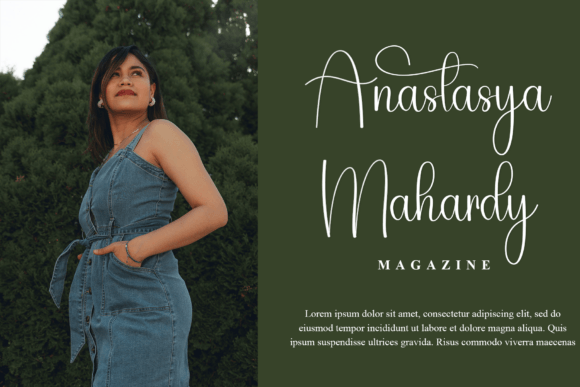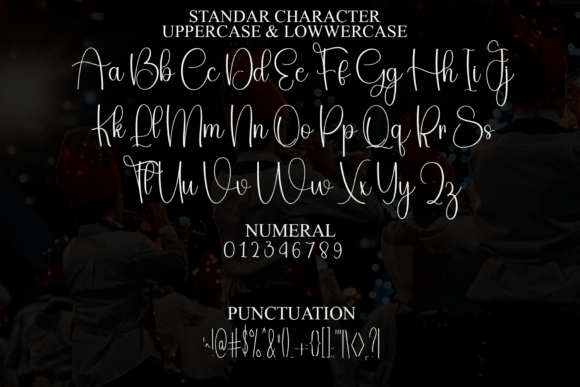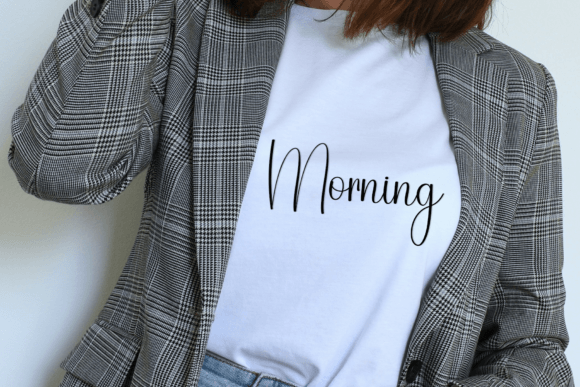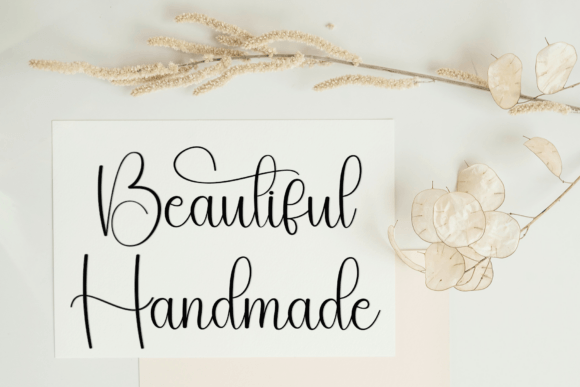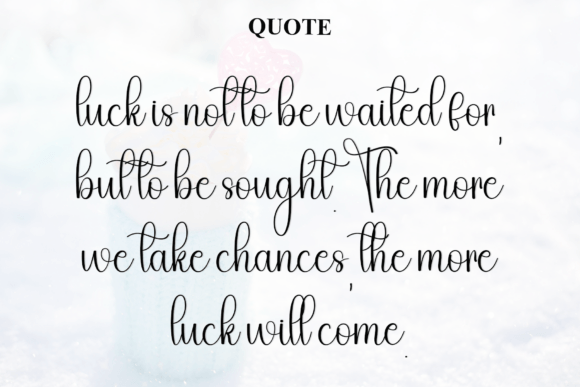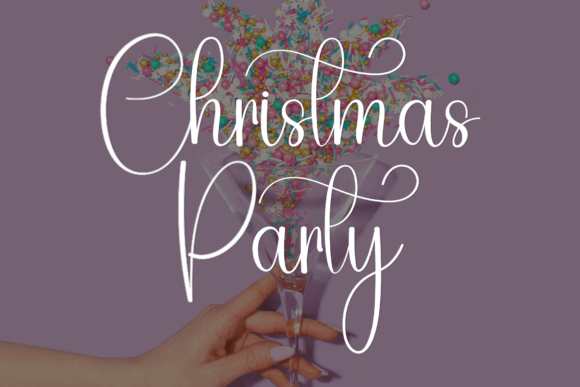
Introducing Giant Party Font: Elevate Your Creativity with Elegance
Are you a designer, crafter, or DIY enthusiast looking for a font that can add a touch of magic to your creative projects? Look no further than the Giant Party Font, a beautiful script font that combines elegance with playfulness. In this article, we’ll dive into the world of Giant Party Font, exploring its features, uses, and benefits for designers and crafters alike.
What is Giant Party Font?
Giant Party Font is a carefully crafted script font that boasts a unique blend of sophistication and whimsy. With its flowing lines and delicate curves, this font is perfect for adding a touch of elegance to any creative project. Whether you’re working on a DIY craft, designing social media graphics for Instagram, or creating calligraphy scripts, Giant Party Font is the perfect choice.
Key Features of Giant Party Font
- Magical Script Font: Giant Party Font is a script font that features a magical, whimsical feel, perfect for adding a touch of wonder to your designs.
- Elegant and Playful: This font combines elegance with playfulness, making it suitable for a wide range of creative projects.
- High-Quality Design: Giant Party Font is carefully crafted with attention to detail, ensuring a high-quality design that will elevate your creations.
- Versatile: This font can be used for a variety of projects, including DIY crafts, social media graphics, calligraphy scripts, and more.
Uses for Giant Party Font
Giant Party Font is an incredibly versatile font that can be used for a wide range of creative projects. Here are just a few ideas to get you started:
- Instagram Graphics: Add a touch of elegance to your Instagram graphics with Giant Party Font. Use it to create eye-catching quotes, announcements, and more.
- DIY Crafts: Use Giant Party Font to add a personal touch to your DIY crafts, such as handmade cards, gift tags, and decorations.
- Calligraphy Scripts: Giant Party Font is perfect for creating beautiful calligraphy scripts for special occasions, such as weddings, birthdays, and holidays.
- Party Decorations: Use Giant Party Font to create stunning party decorations, such as banners, garlands, and signs.
Giant Party Font offers a range of benefits for designers and crafters, including:
- High-Quality Design: Giant Party Font is a high-quality design that will elevate your creative projects and add a touch of professionalism.
- Time-Saving: With Giant Party Font, you can create stunning designs and scripts in no time, saving you time and effort.
- Inspiration: This font is sure to inspire your creativity and help you come up with new and innovative ideas for your designs.
In conclusion, Giant Party Font is a magical script font that is perfect for designers, crafters, and DIY enthusiasts looking to add a touch of elegance and whimsy to their creative projects. With its flowing lines, delicate curves, and high-quality design, this font is sure to elevate your creations and inspire your creativity. Whether you’re working on Instagram graphics, DIY crafts, calligraphy scripts, or party decorations, Giant Party Font is the perfect choice.